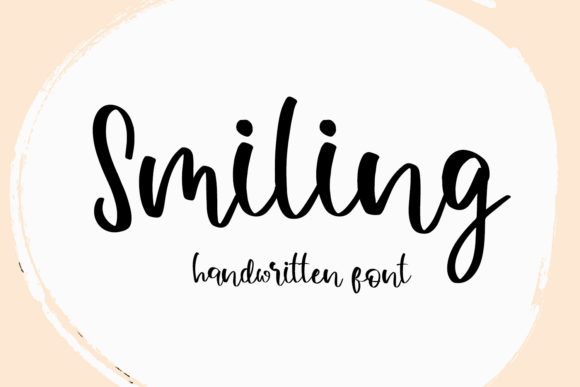
Step into a realm of enchanting elegance with Smiling Script Font, a captivating creation by Al Ghul, designed to add a touch of joy and warmth to your creative endeavors. This delightful script font is a symphony of flowing curves and lively strokes, exuding a sense of cheerful optimism.
With its playful personality, Smiling Script effortlessly adds a touch of charm to any design project. Its unique characters, reminiscent of a skilled calligrapher's hand, bring a personal and heartfelt touch to your creations. Whether you're crafting wedding invitations, heartfelt letters, or eye-catching social media graphics, Smiling Script will leave a lasting impression.
Immerse yourself in the beauty of Smiling Script's intricate details and flourishes. Each letter is meticulously crafted to evoke a sense of celebration and happiness, adding a layer of sophistication to your designs. The font's smooth curves and elegant lines create a visual harmony that captivates the eye and draws readers into your content.